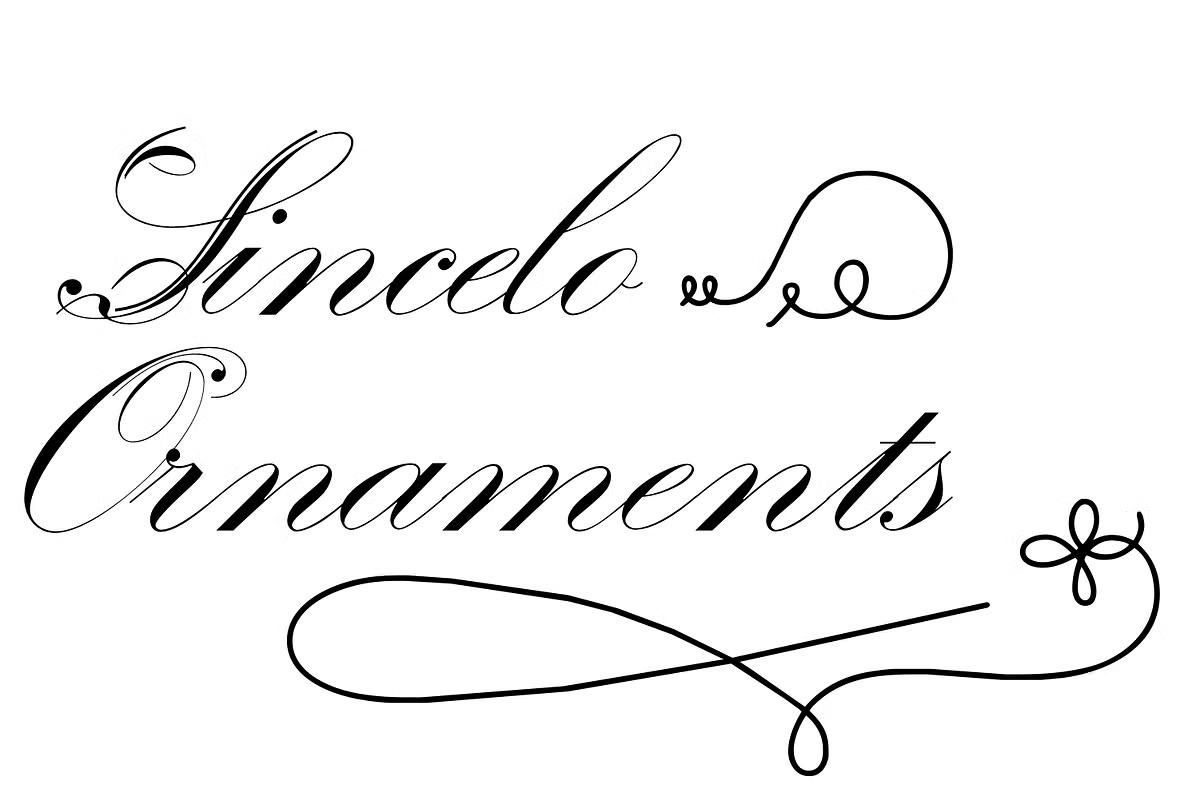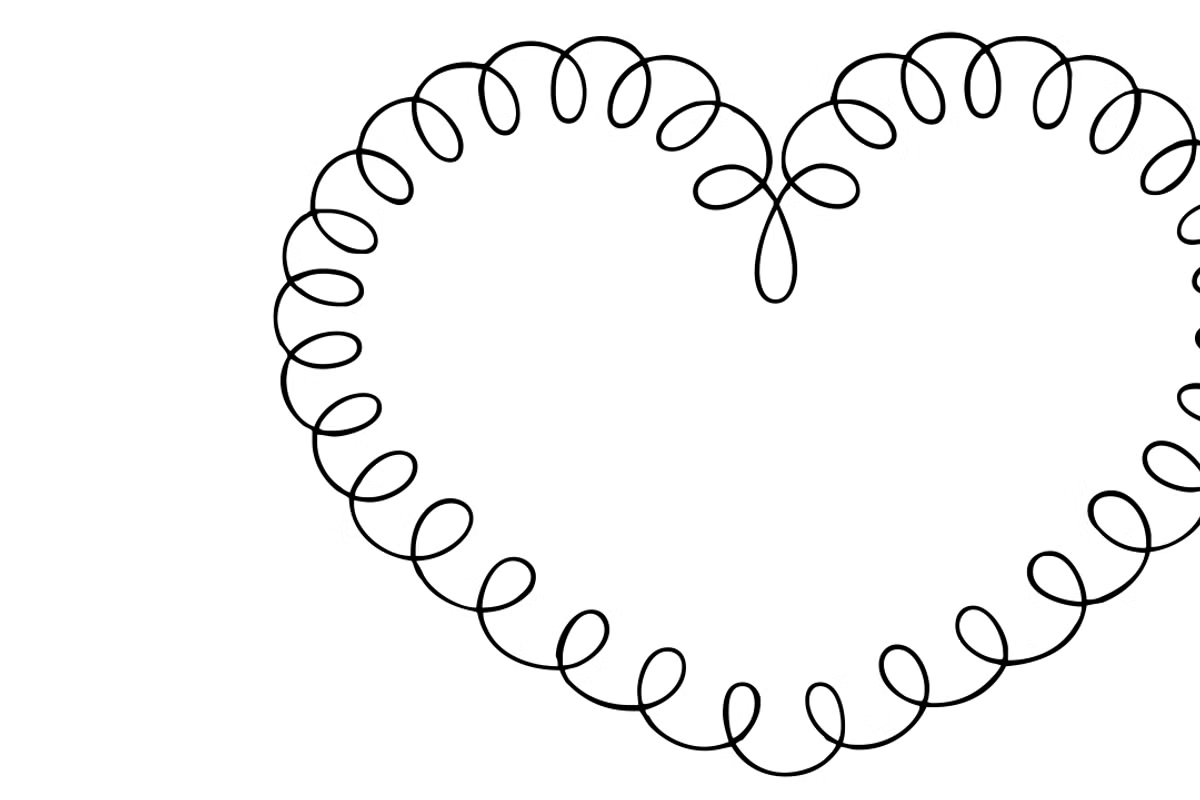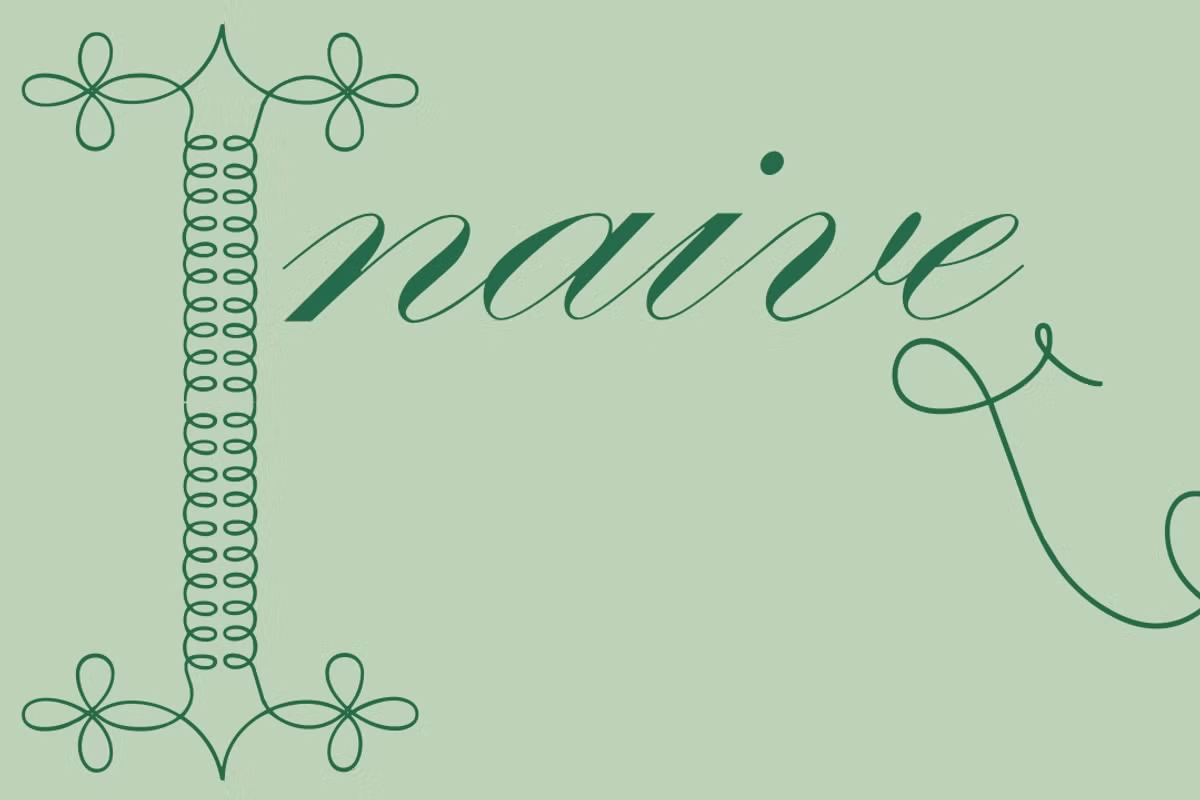
Sincelo Ornaments is a well crafted display font with over 200 glyphs to create intricate and soft artworks. A partnership font between Intellecta Design and Monocracy Types, by Paulo W. The script font used in these artworks is the unpublished Sincelo…